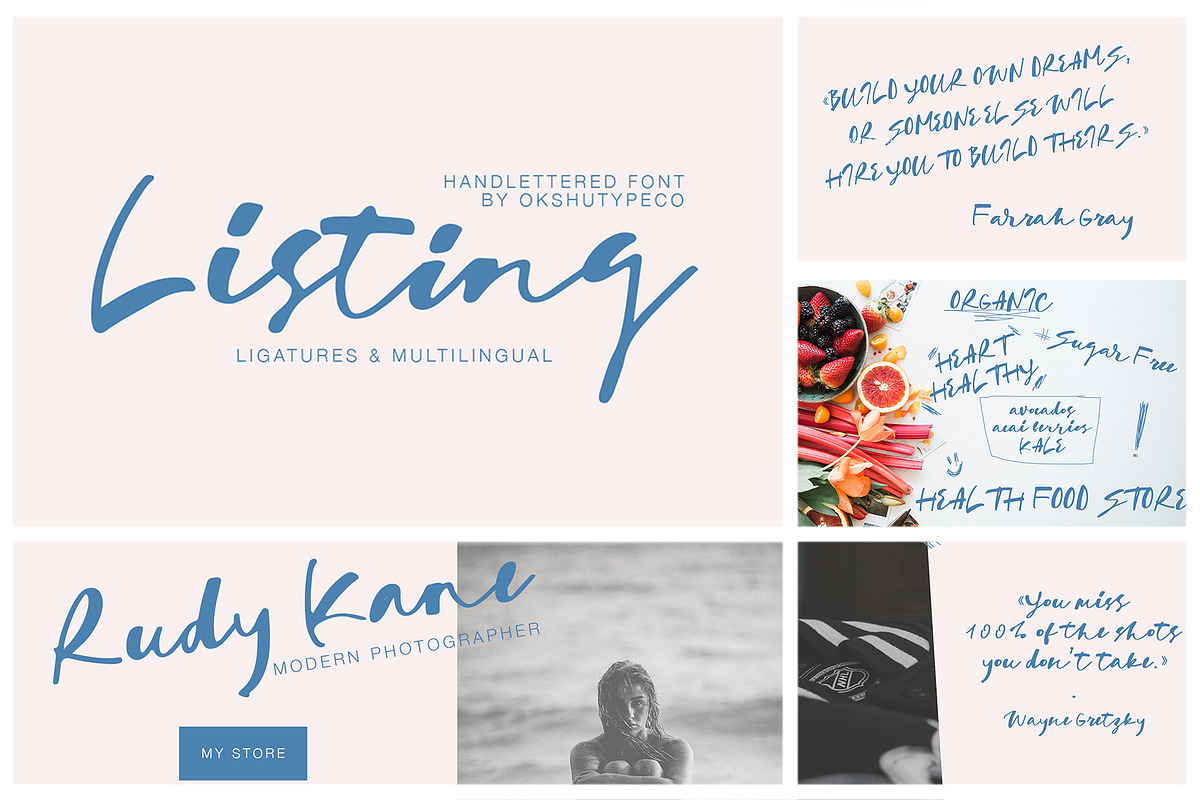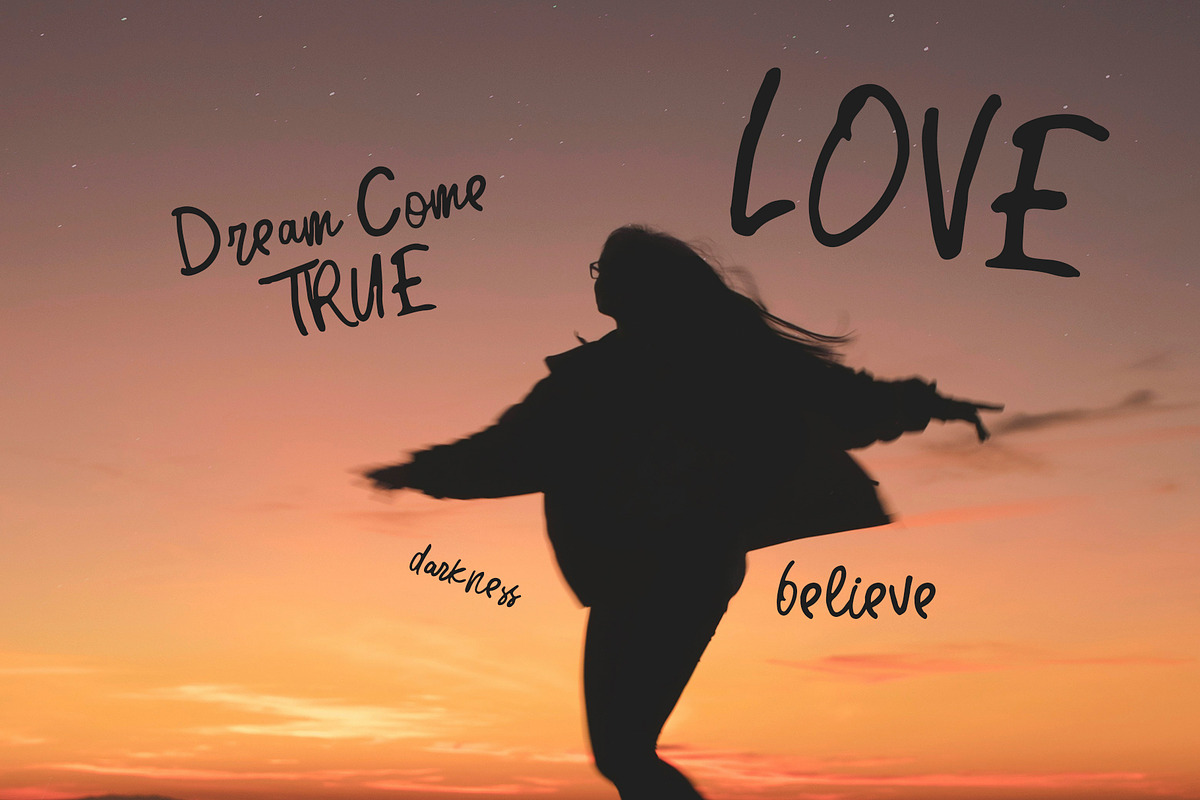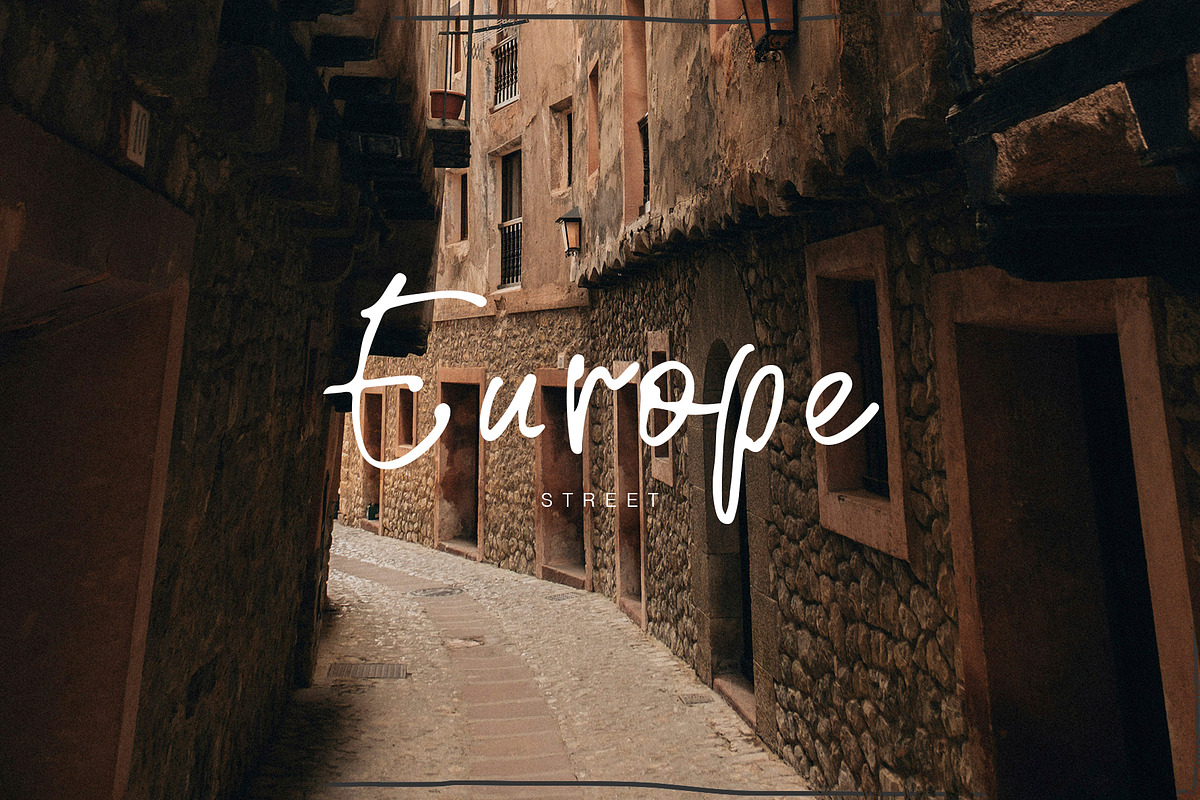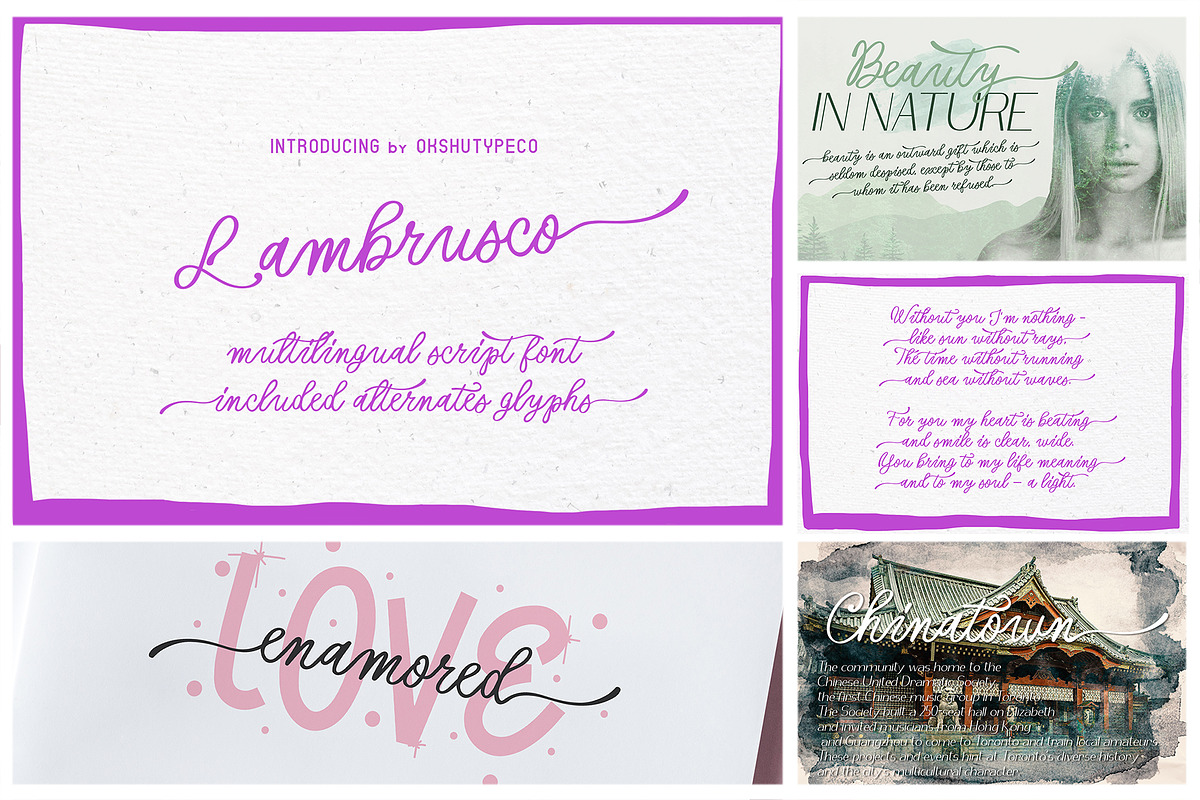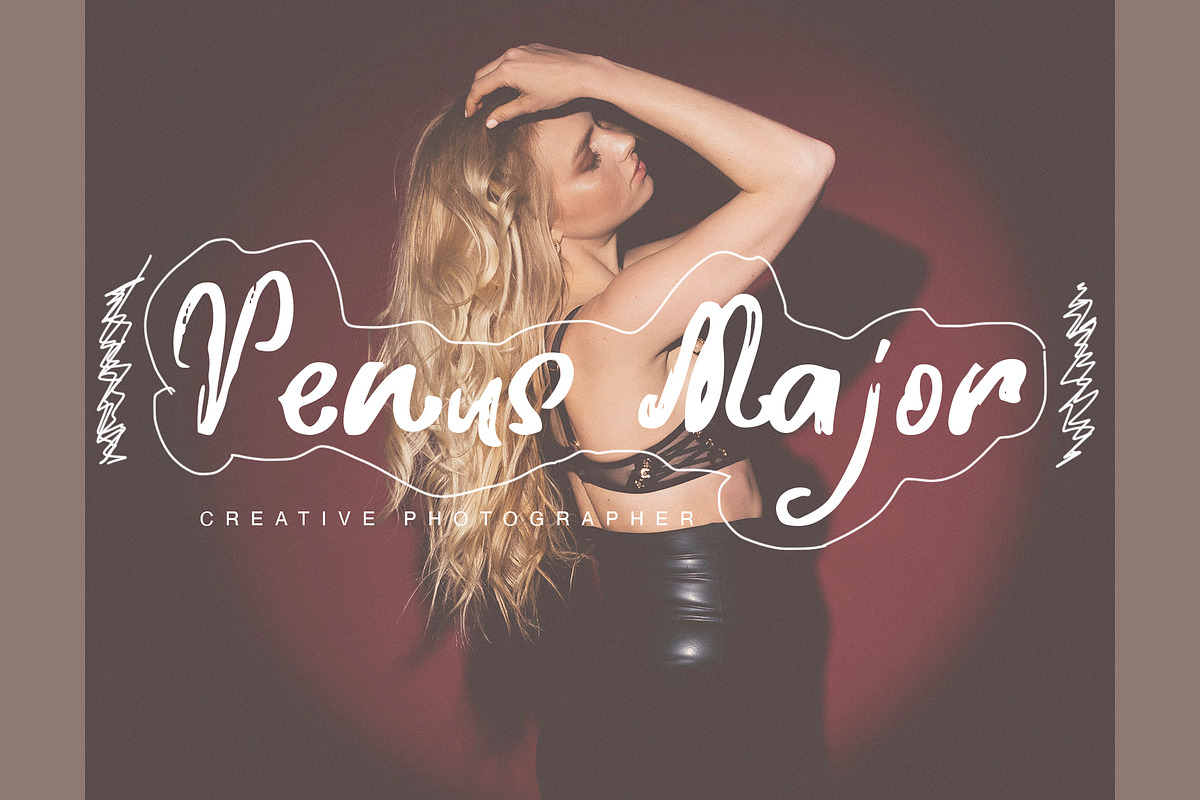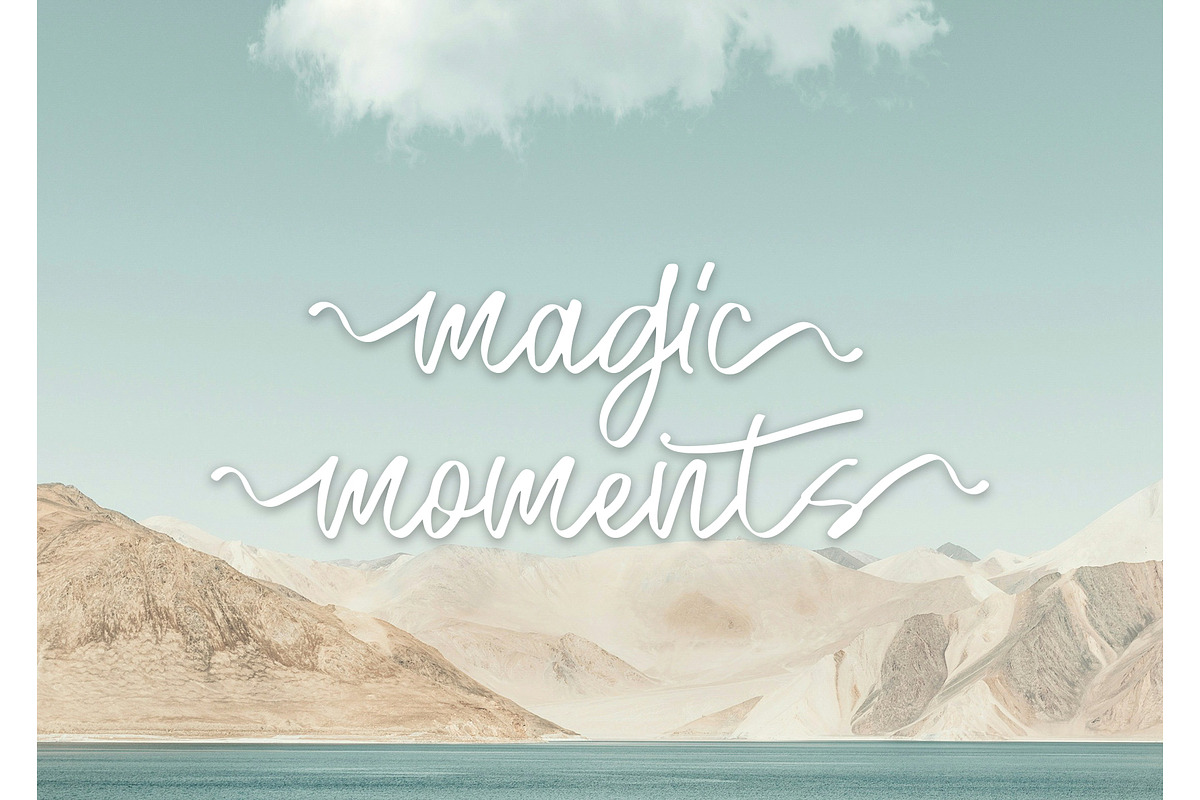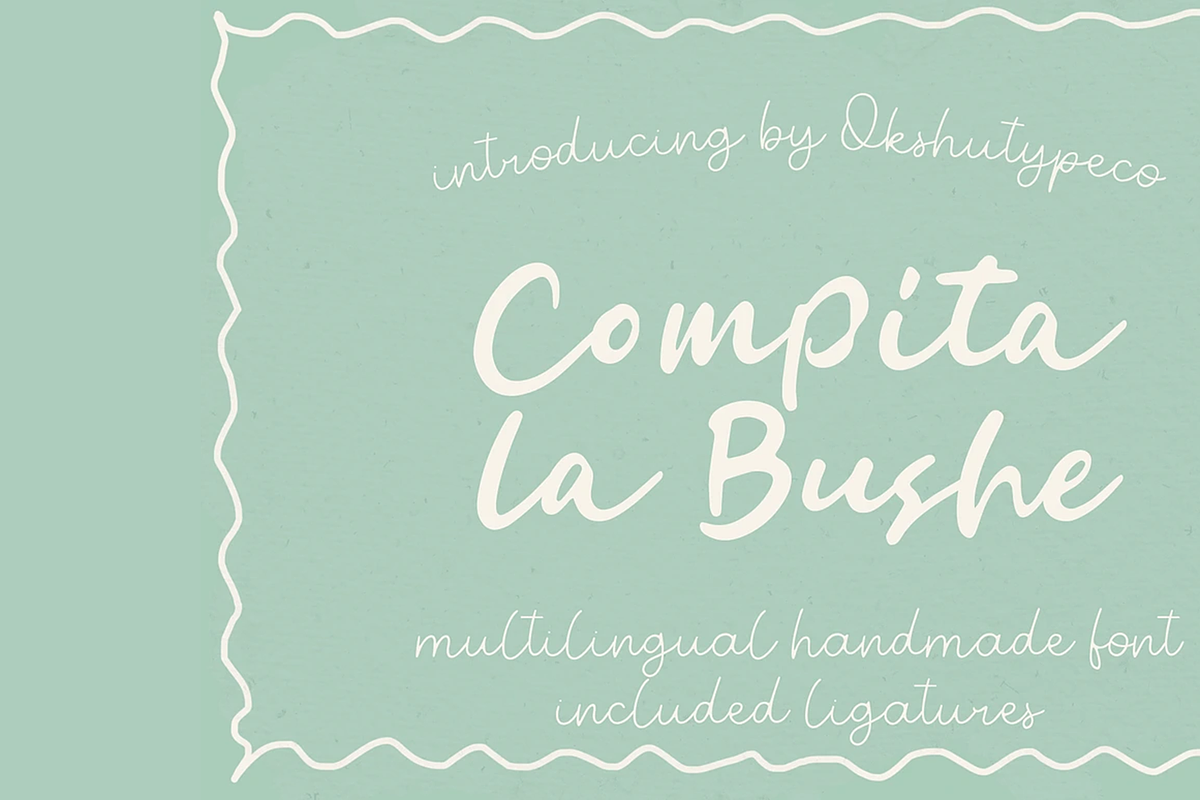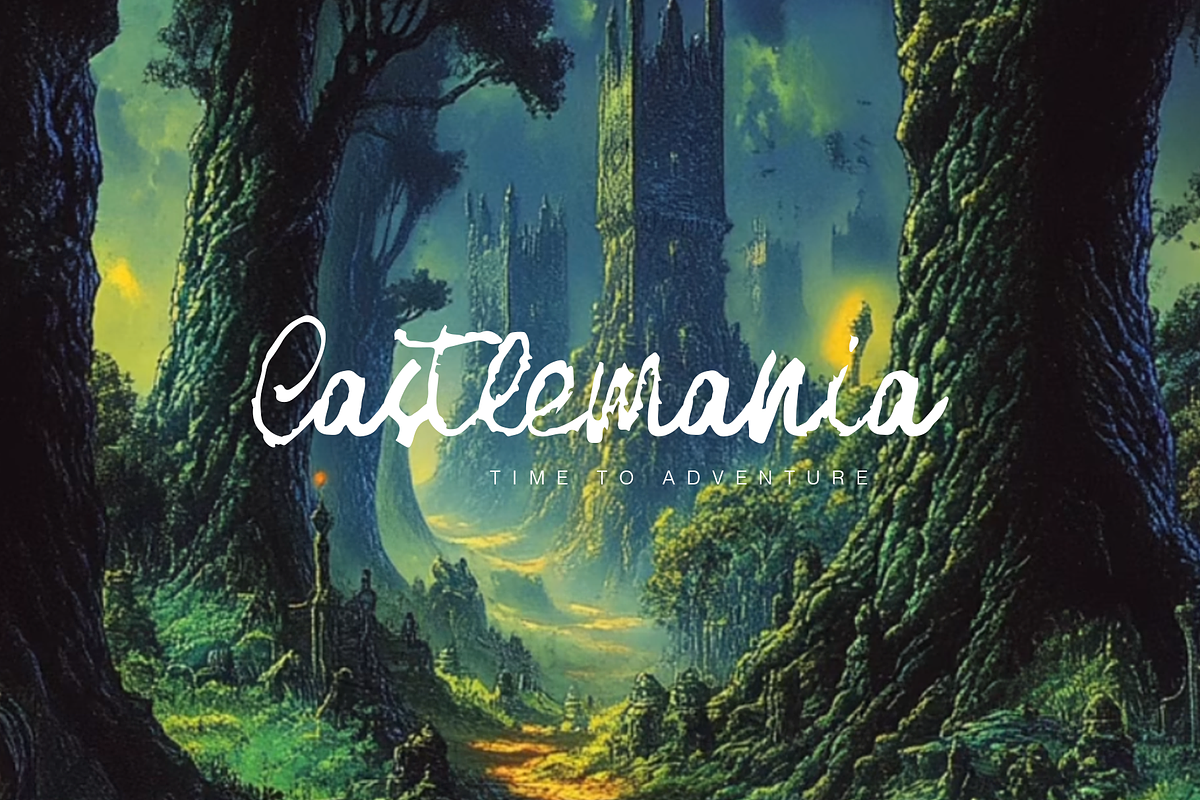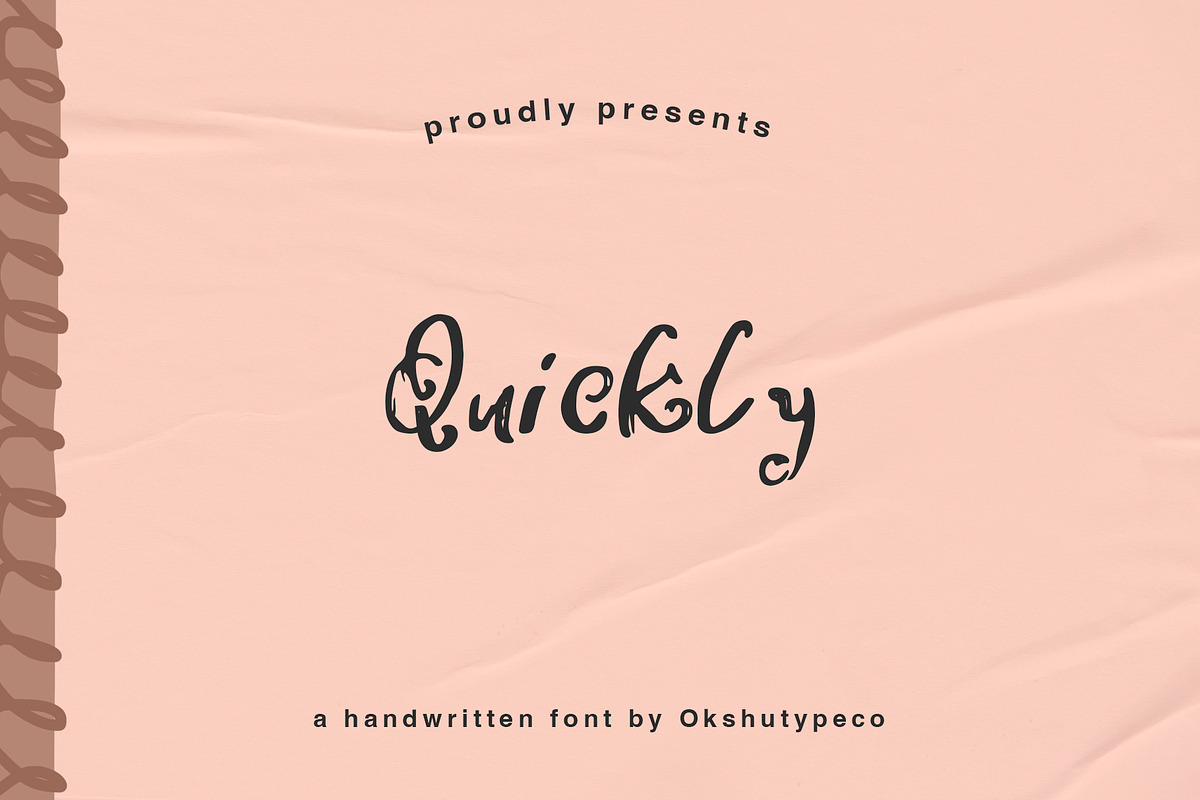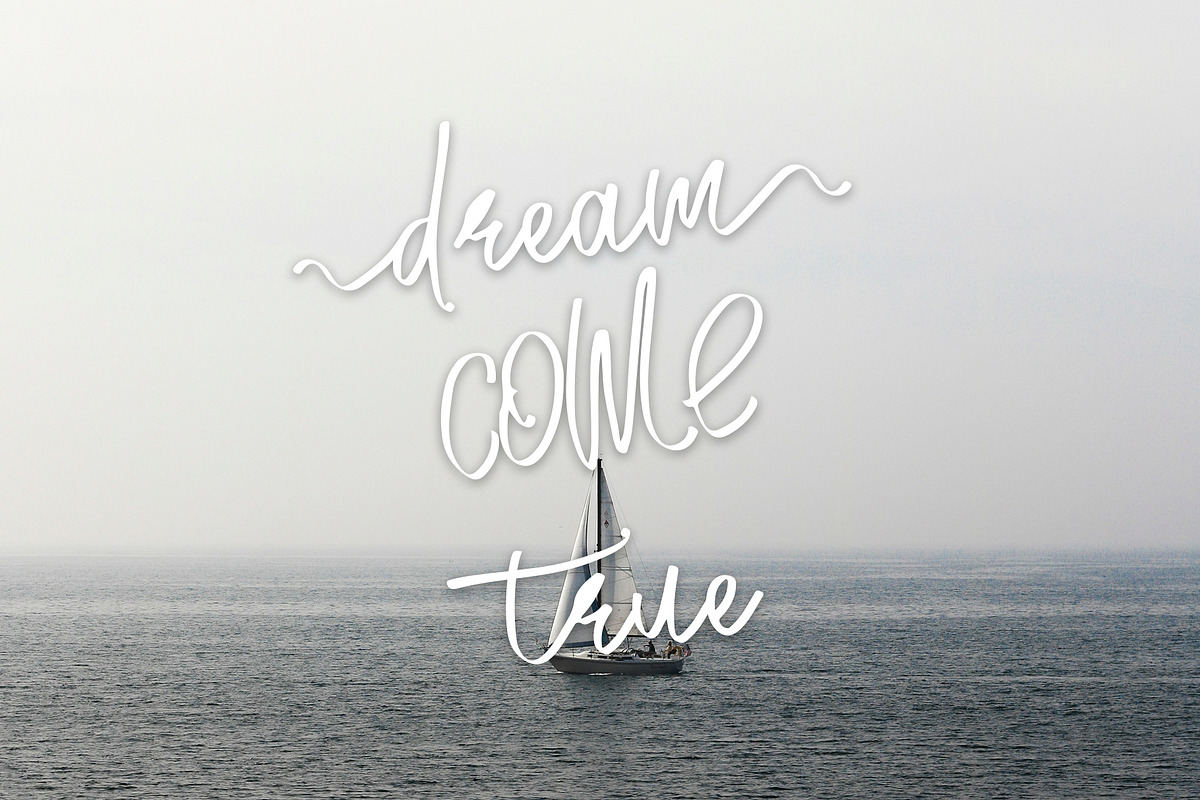
Fontember 12in1 Font Bundle
FONTEMBER Unique 12in1 Font Bundle
Included 12 unique fonts :
Sans Serif font
- Burmister
Handwritten Script font
- "SpringTimeHoliday" included ligatures and multilingual font
- "Whisper" multi language font
- "El Grande" included multi language and ligatures
- "Unique moments" multi language font
- "Wonderly" multilingual and alternates glyphs
- "Jingle Empire" included multi language and ligatures
- "Quickly" easy handmade font
- "Compita la Buche" included multi language and ligatures
- "Listing" included mutlilanguage and ligatures
- "Rah Itegez" included multi language
- "Lambrusco" included multi language and alternates